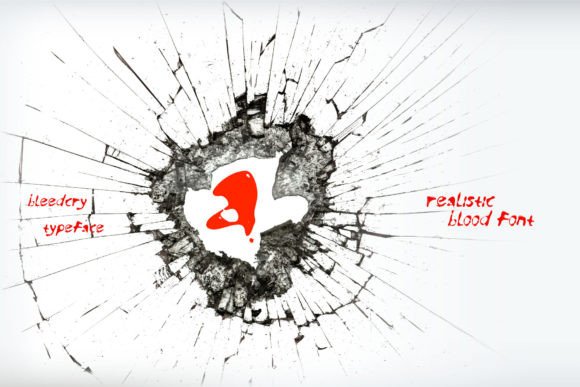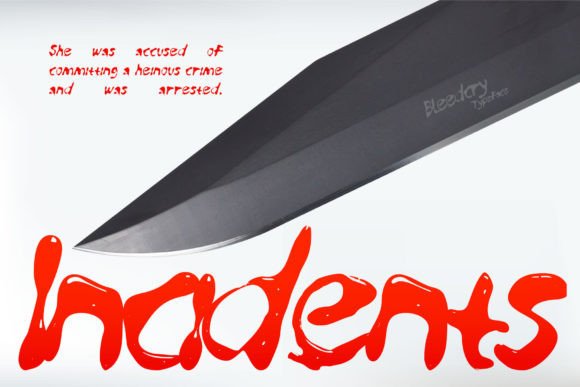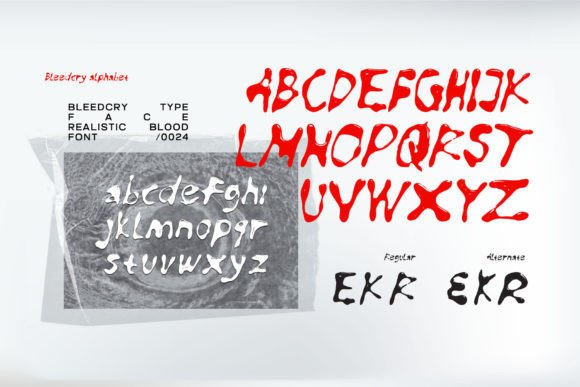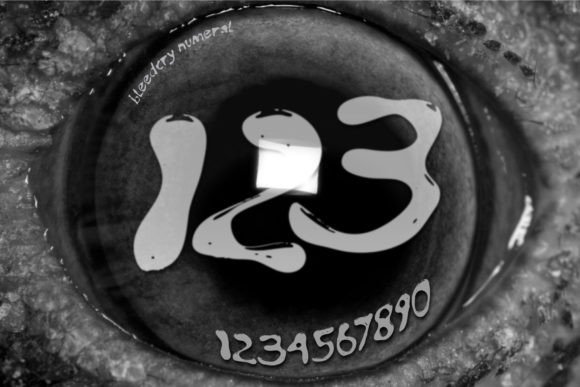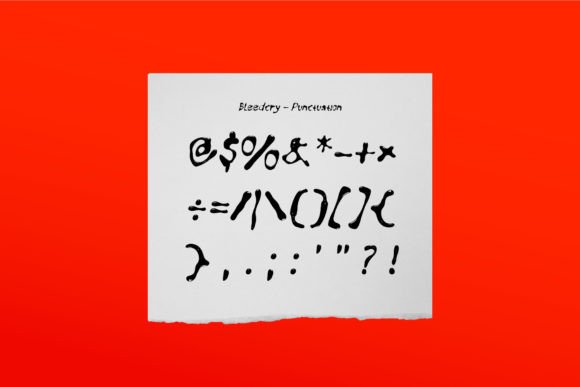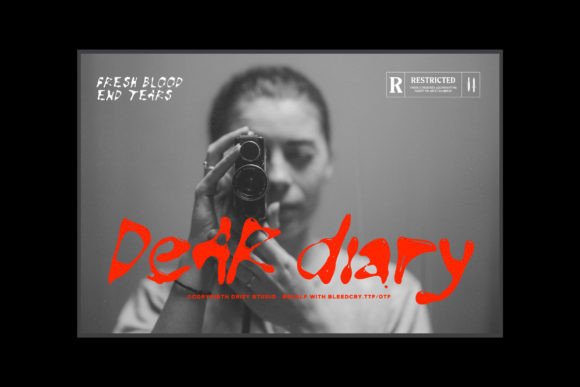
Introducing Bleedcry Font: Unleash the Dark Beauty of Noir Crime in Your Designs
In the world of typography, fonts are more than just a means of communication – they’re an expression of style, emotion, and creativity. For designers and crafters looking to add a touch of edginess and drama to their projects, Bleedcry Font is here to make a statement. This unique typeface is inspired by the dark, gritty essence of Noir Crime, bringing an air of intensity, passion, and mystery to any design.
The Artistic Interpretation of Blood
Bleedcry Font is not just a collection of letters and numbers; it’s an artistic interpretation of blood – a symbol of life, passion, and power. The font’s design is characterized by bold, expressive lines and a distinctive texture that evokes the raw emotion of blood. Each character is carefully crafted to convey a sense of urgency and energy, making Bleedcry perfect for projects that require a bold, attention-grabbing typography.
Key Features of Bleedcry Font
- Unique Texture: Bleedcry’s texture is unlike any other font. Its rough, organic feel gives it a raw, unpolished look that’s perfect for designs that require a touch of grit and realism.
- Bold and Expressive Lines: The font’s bold lines and dramatic curves make it perfect for headlines, titles, and other display text.
- Highly Legible: Despite its bold design, Bleedcry is highly legible, making it suitable for use in a variety of contexts, from posters and flyers to digital screens and body text.
- Versatile: Bleedcry can be used in a wide range of design projects, from film and video game titles to advertising and editorial design.
What Makes Bleedcry Perfect for Designers and Crafters?
Bleedcry Font is more than just a typography – it’s a tool for creative expression. Here are just a few reasons why designers and crafters will love Bleedcry:
- Adds Drama and Intensity: Bleedcry’s bold design and raw texture add a touch of drama and intensity to any design, making it perfect for projects that require a strong visual impact.
- Evokes Emotion: The font’s unique texture and expressive lines evoke a strong emotional response, making it perfect for designs that aim to provoke or inspire.
How to Use Bleedcry Font in Your Designs
Using Bleedcry Font in your designs is easy. Here are a few tips to get you started:
- Pair with Neutral Backgrounds: Bleedcry’s bold design works best on neutral backgrounds, allowing the font to take center stage.
- Experiment with Colors: Bleedcry looks great in bold, bright colors, but it can also be used in more muted tones to create a sense of subtlety and nuance.
- Use for Headlines and Titles: Bleedcry is perfect for headlines and titles, where its bold design and raw texture can make a strong visual impact.
Bleedcry Font is a unique and powerful typography that brings a touch of Noir Crime to any design project. With its bold, expressive lines and raw texture, Bleedcry is perfect for designers and crafters looking to add a touch of drama and intensity to their work. Whether you’re designing a poster, a website, or a video game title, Bleedcry is the perfect choice for anyone looking to make a statement.